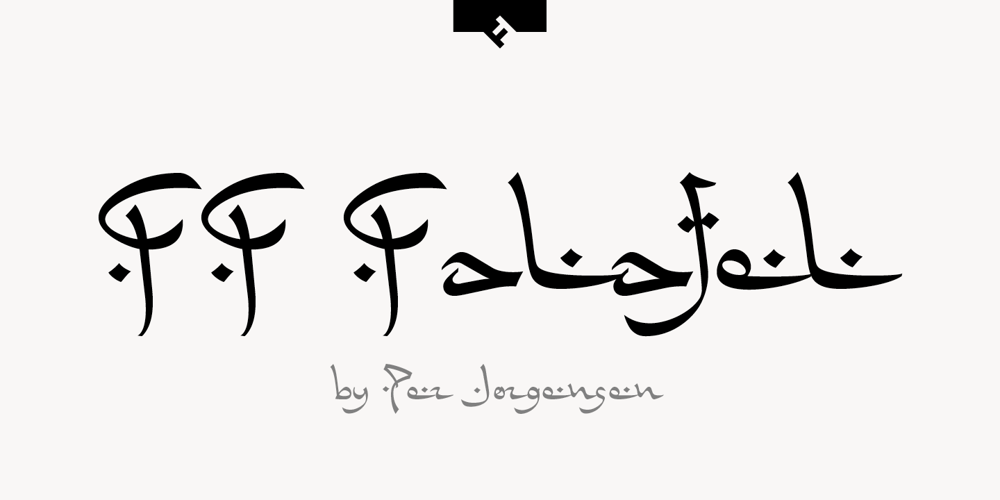
FF Falafel Font Family was designed by Per Baasch Jørgensen and published by FontFont. FF Falafel contains 1 styles and family package options. Danish type designer Per Jørgensen created this script FontFont in 2002. The font is ideally suited for advertising and packaging, festive occasions, film and tv as well as software and gaming. FF Falafel provides advanced typographical support with features such as ligatures and alternate characters. It comes with tabular lining and tabular oldstyle figures.